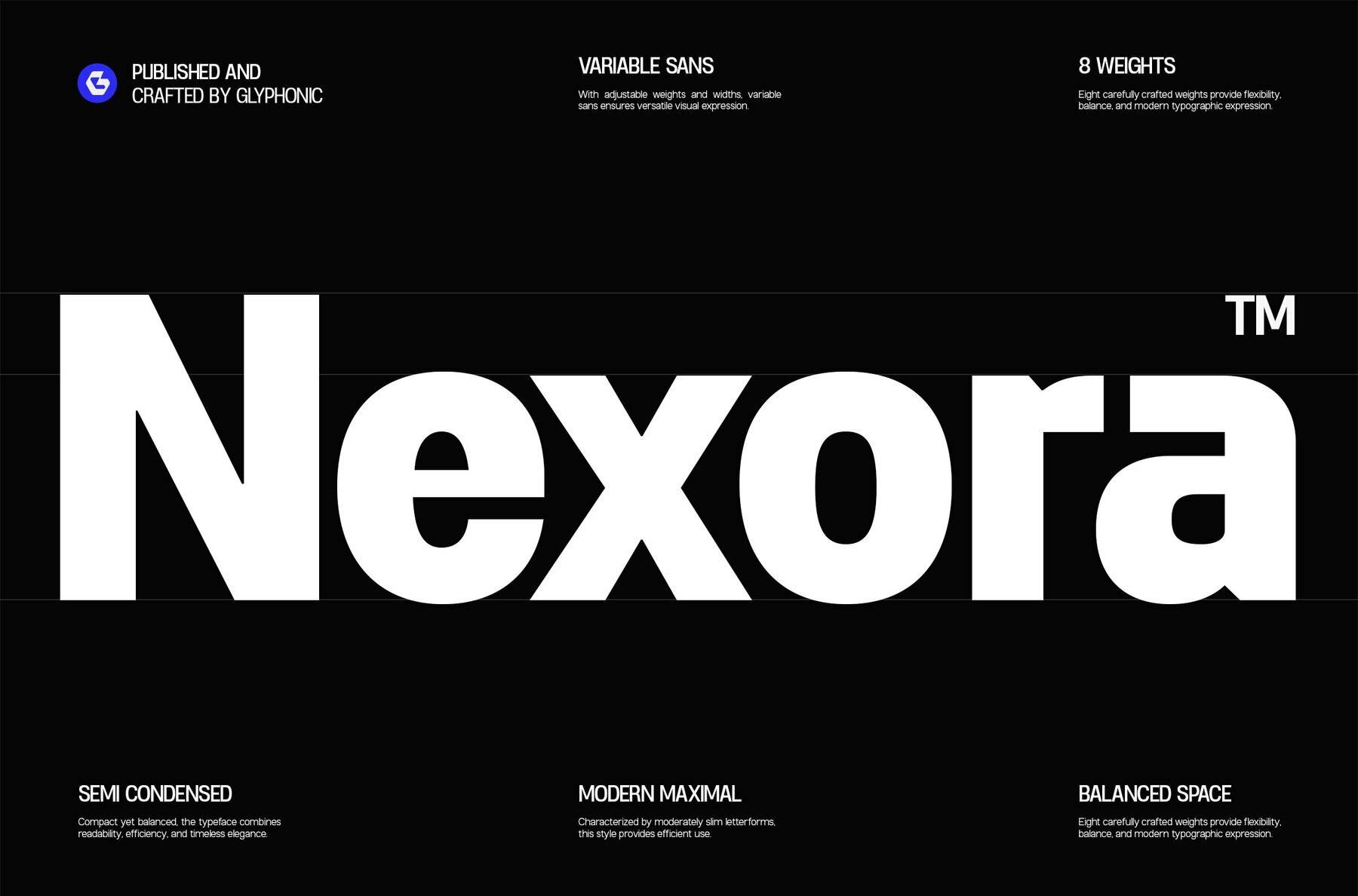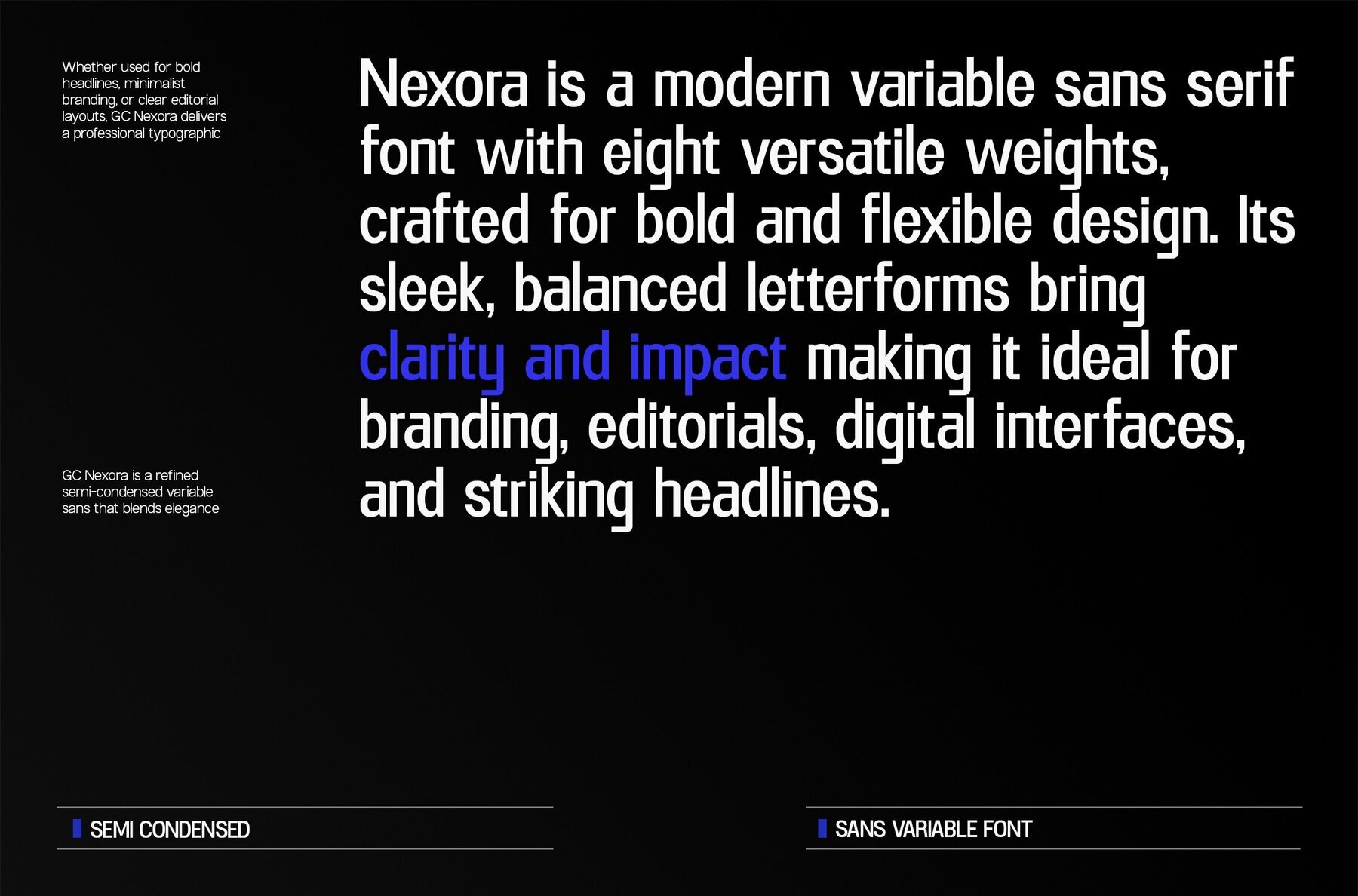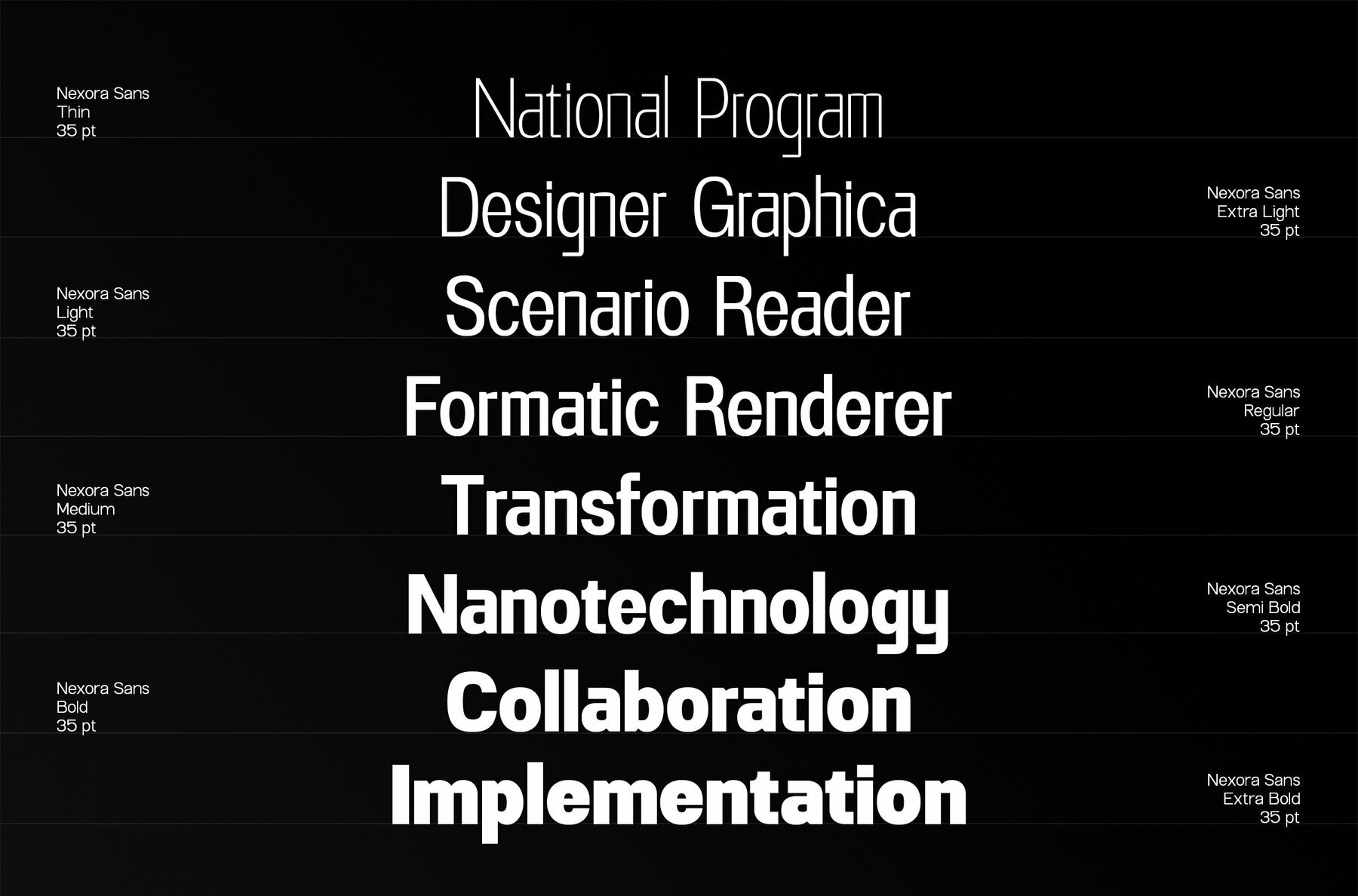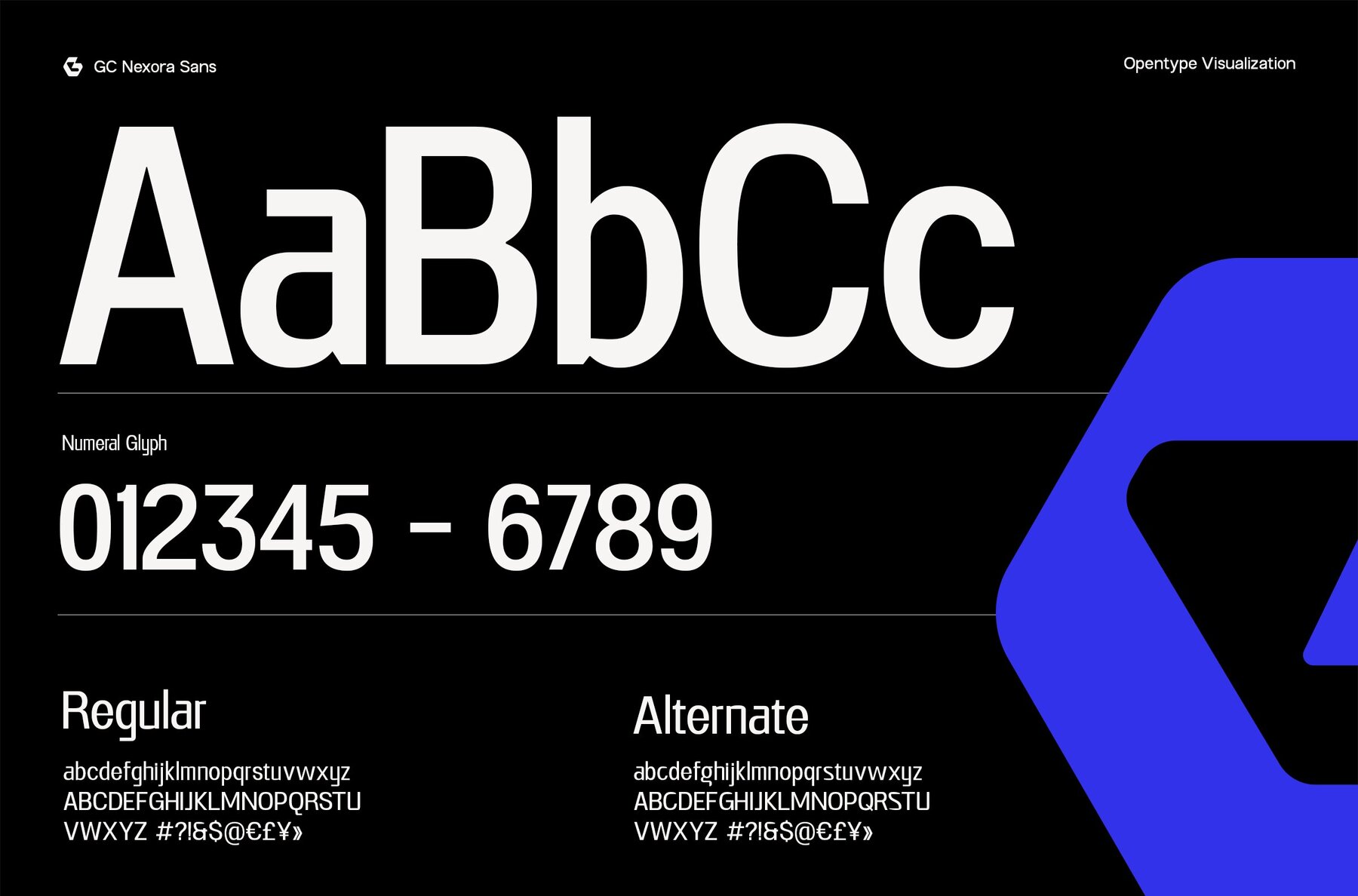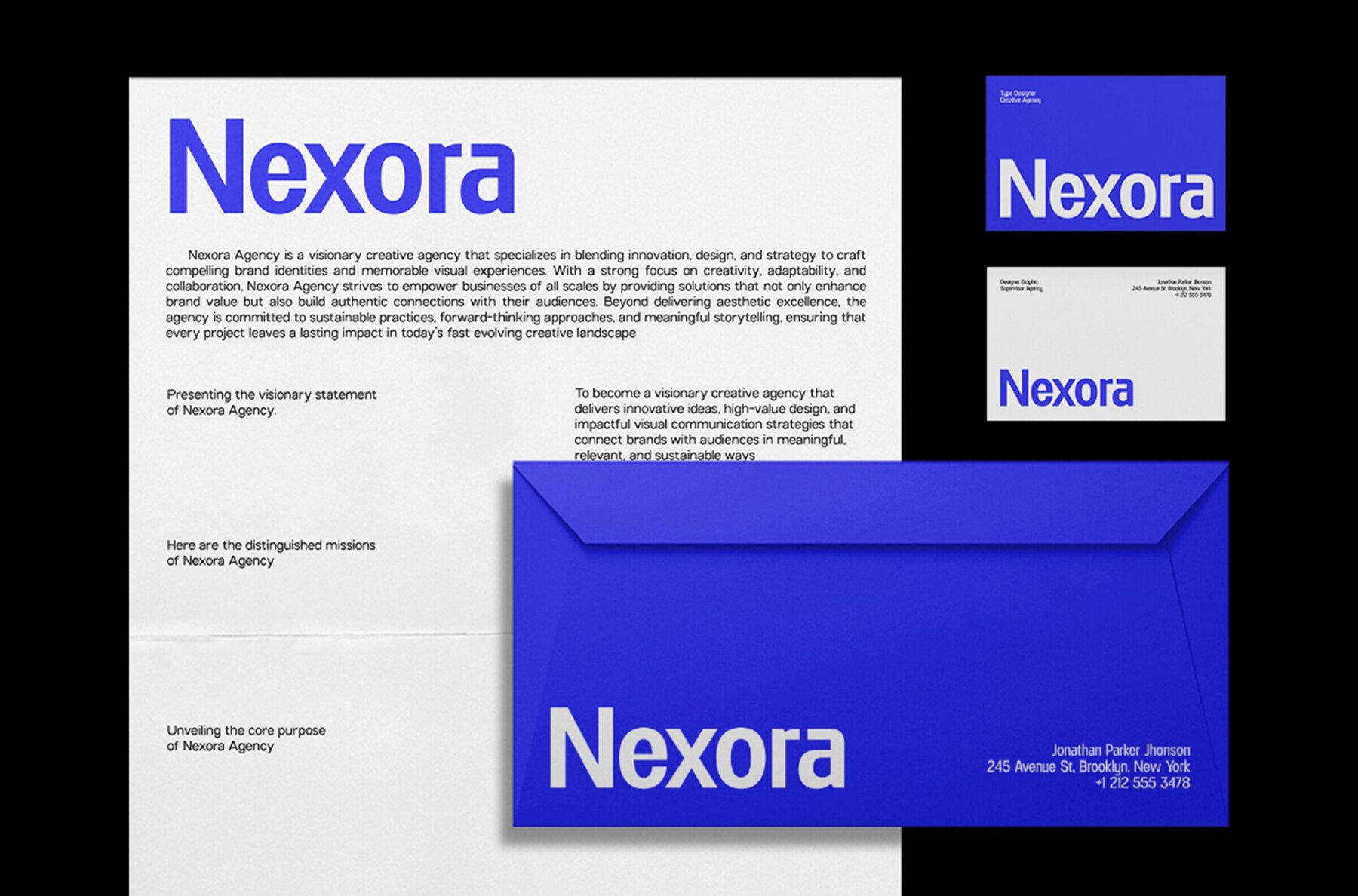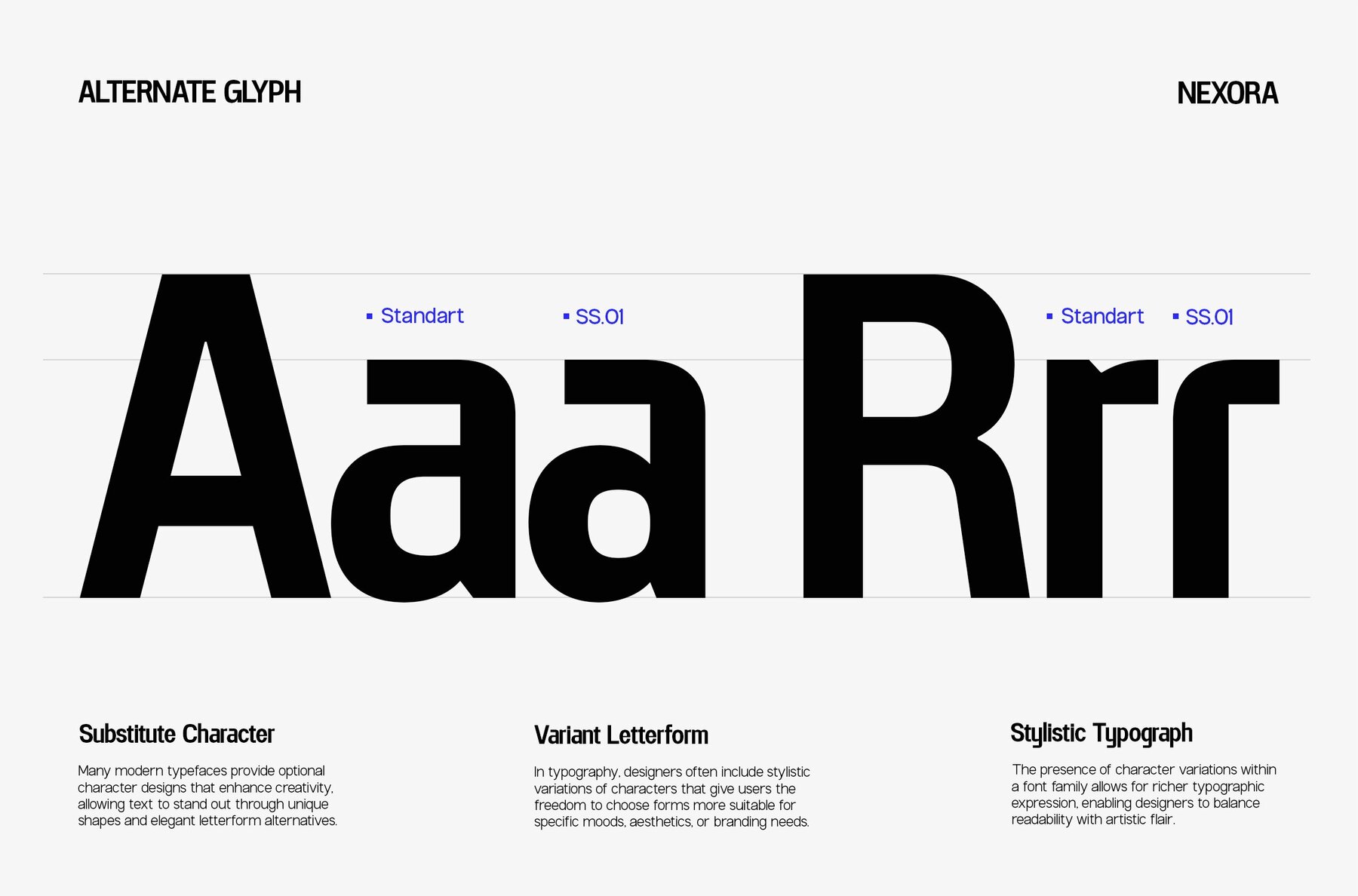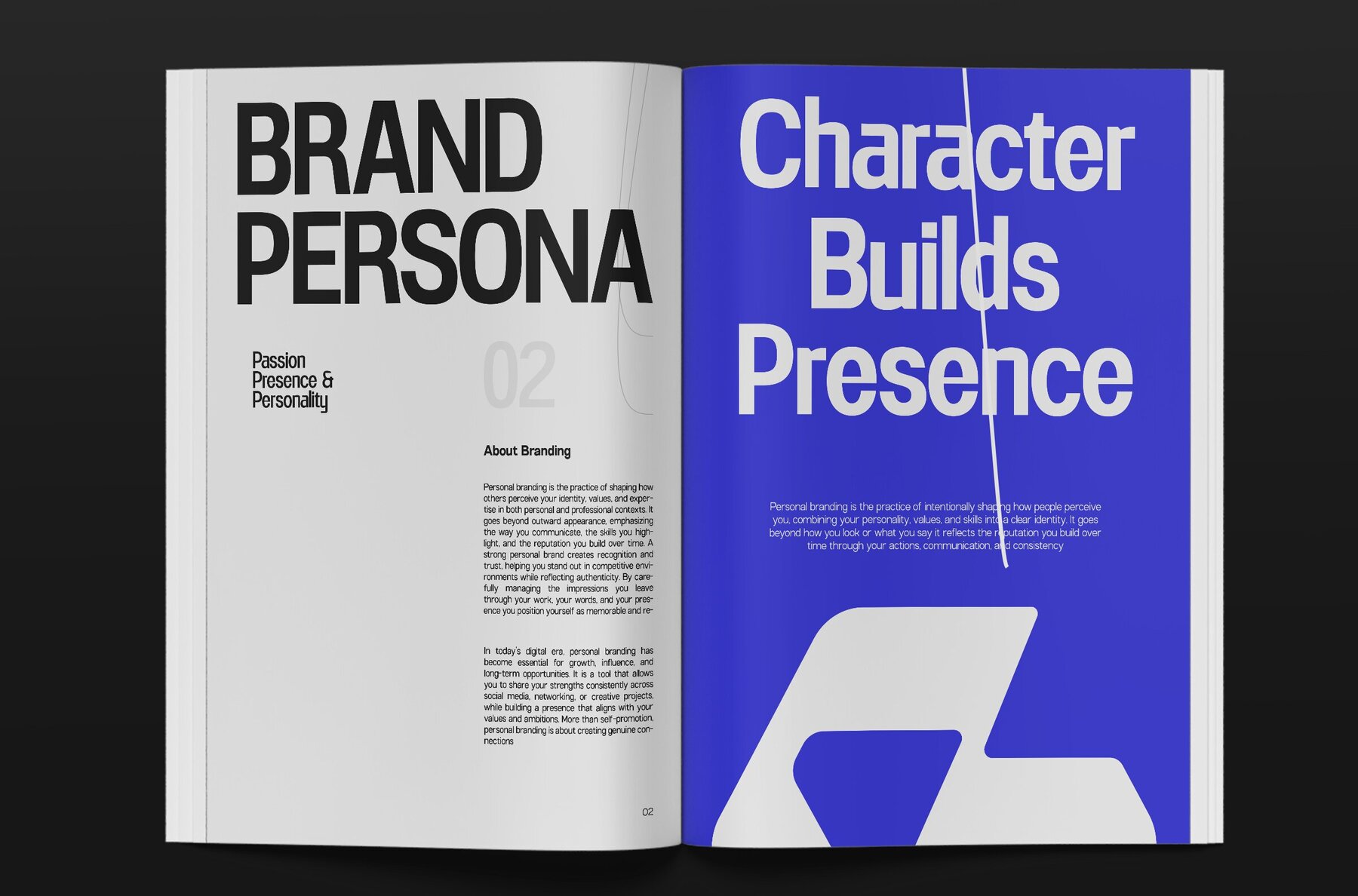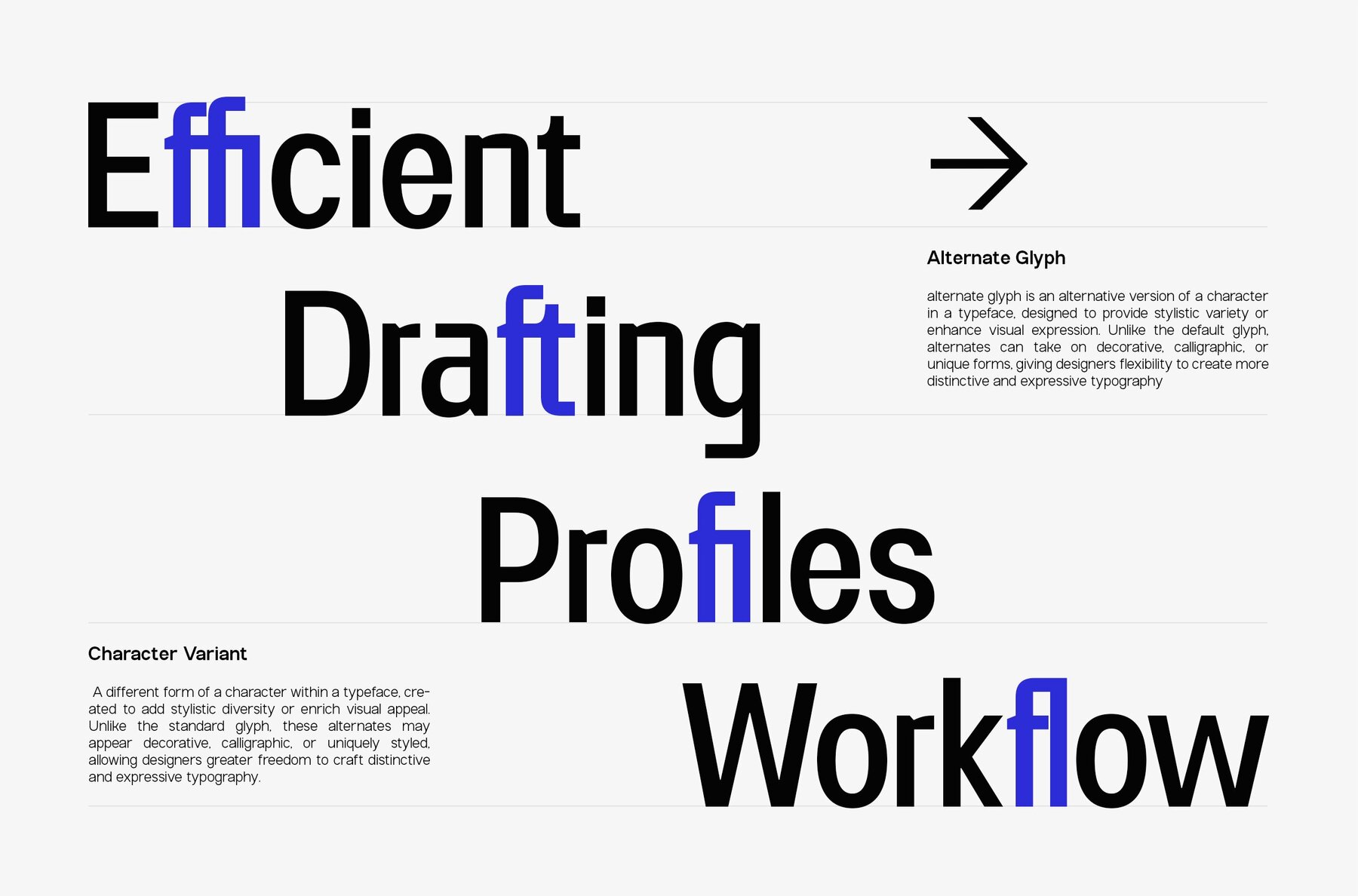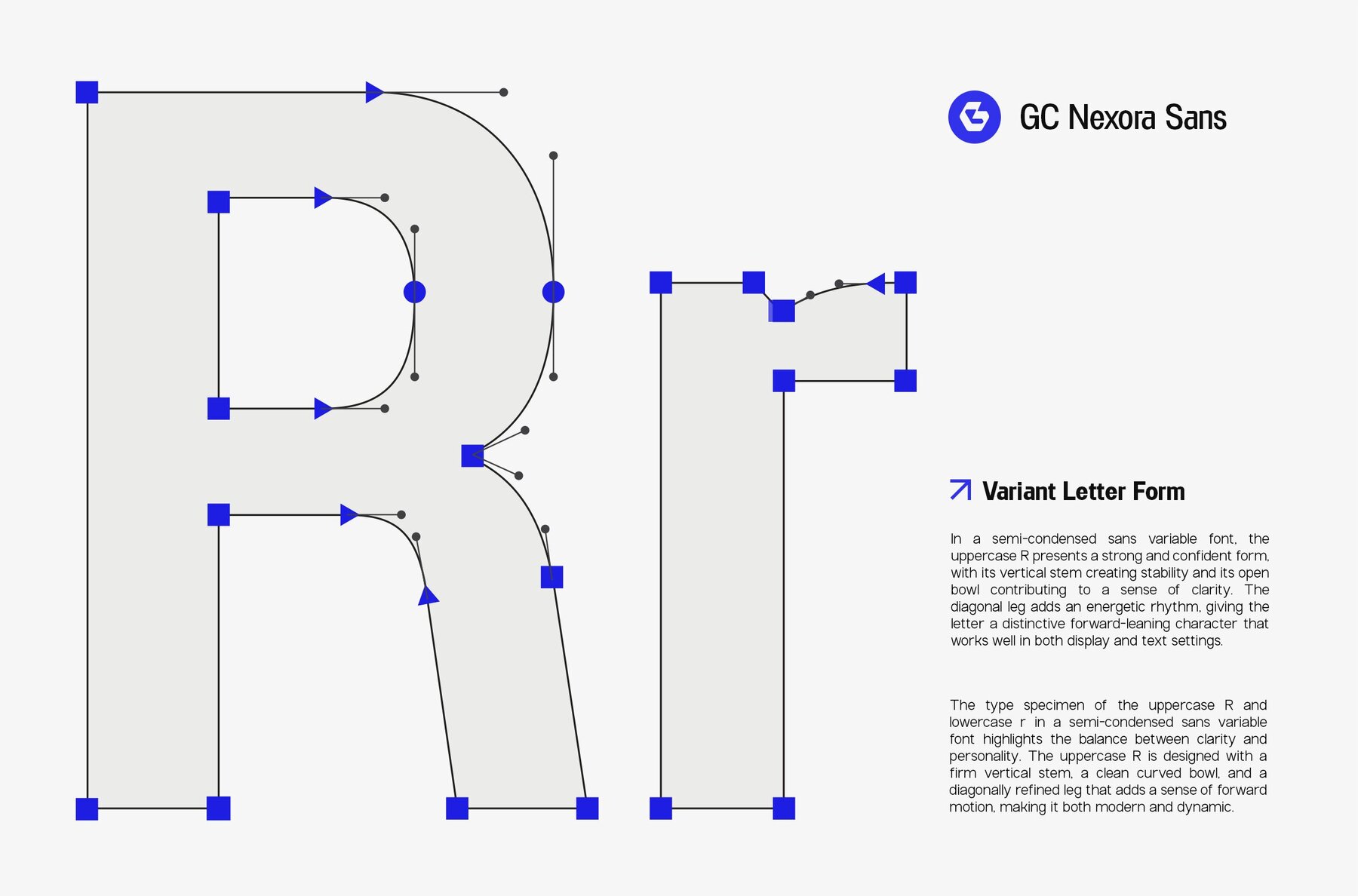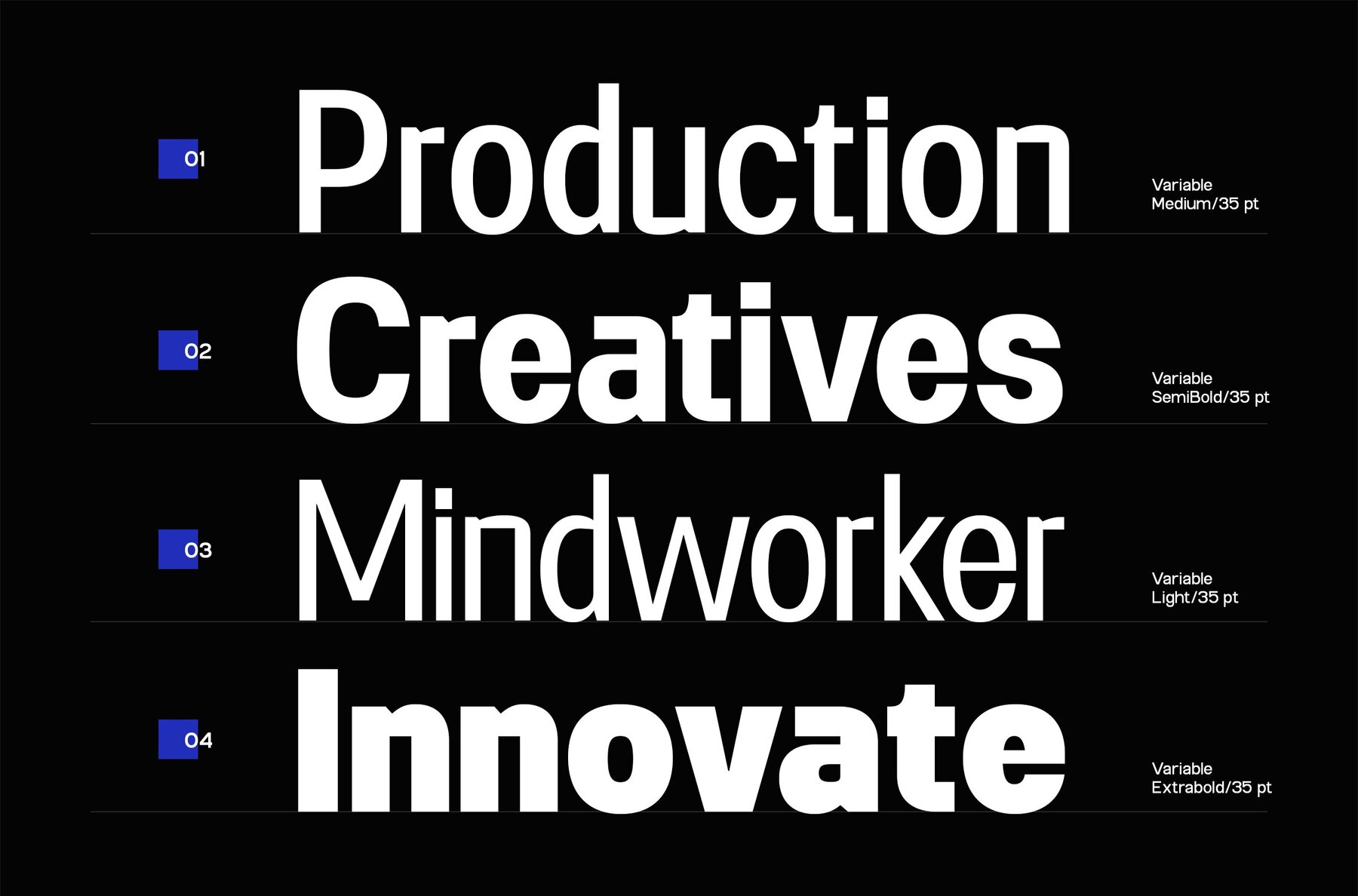
GC Nexora Font
GC Nexora is a contemporary sans-serif typeface that combines precision, versatility, and a striking visual presence. Its variable weights and widths offer complete flexibility, making it suitable for digital and print platforms. Ideal for brands, headlines, interfaces, and editorial designs, GC Nexora embodies clarity and sophistication. Its semi-condensed form provides a balance between efficiency and strong readability, enhanced by a geometric construction that conveys confidence and modernity. Built for designers who appreciate adaptability and character, GC Nexora imparts a sense of control and forward-thinking style to every layout. Features: GC Nexora achieves a harmonious blend of modernity and precision, making it an excellent choice for expressive designs.GC Nexora: Versatile Sans-Serif for Modern Design